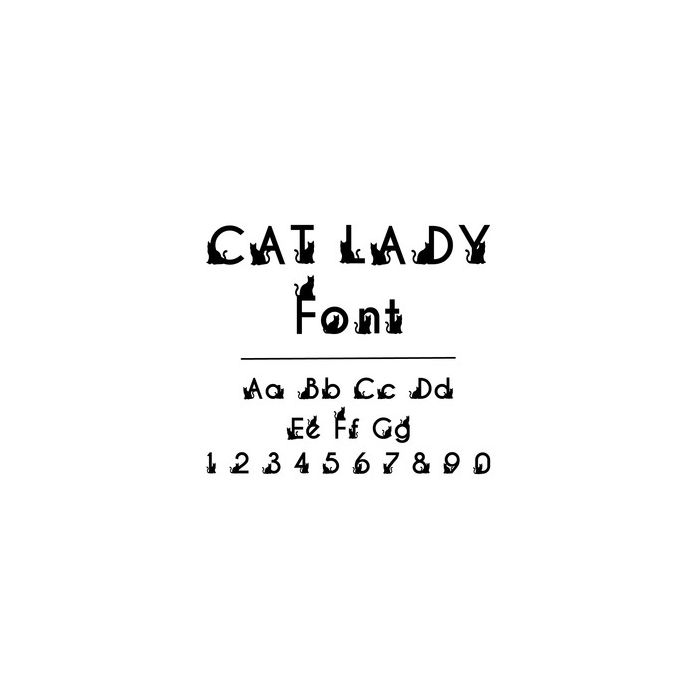
Cat Lady Font. Hand drawn font, including upper and lower case letters and numbers with decorative cat silhouettes. For more design ideas, coordinating designs & products and inspiration, please visit my blog http://www.sarahhurleyblog.com